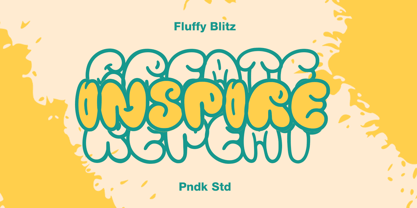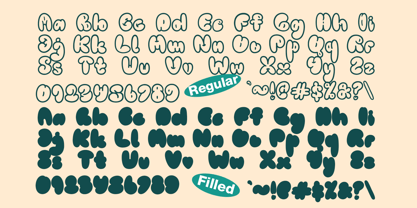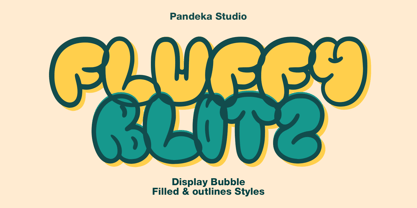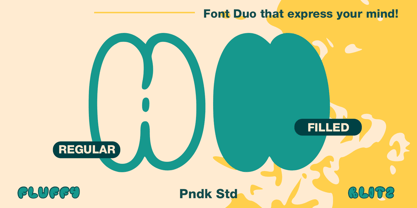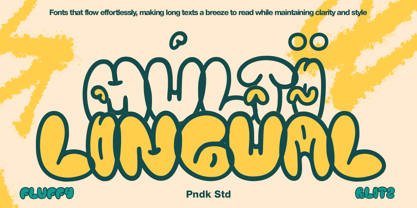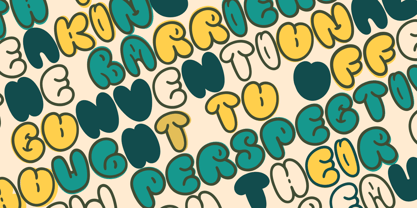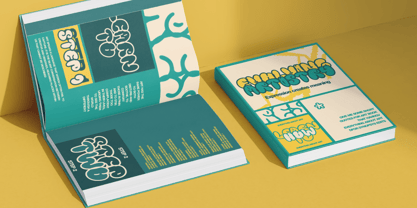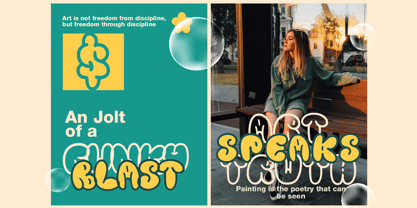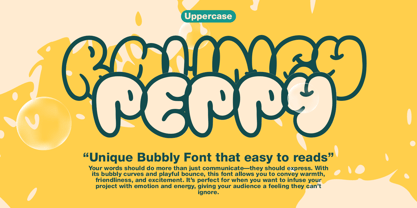
Fluffy Blitz
by Pandeka Studio
The Fluffy Blitz Font Family was designed by Sagara Nararya and published by Pandeka Studio. Fluffy Blitz contains 2 styles and family package options.
Introducing Fluffy Blitz – Graffiti Bubble Font Say hello to Fluffy Blitz, a bold and playful graffiti bubble font that brings a vibrant energy to your designs! With its 2 styles: Filled and Outlines, Fluffy Blitz combines a fun, rounded, and balloon-like appearance with a touch of edgy street art vibes. This font is perfect for projects that want to make a statement, such as graffiti-inspired designs, posters, stickers, t-shirts, branding, or even creative social media posts.
• 2 Styles: Filled and Outlines
• Full Character Set: Uppercase, lowercase, numbers, symbols, and punctuation